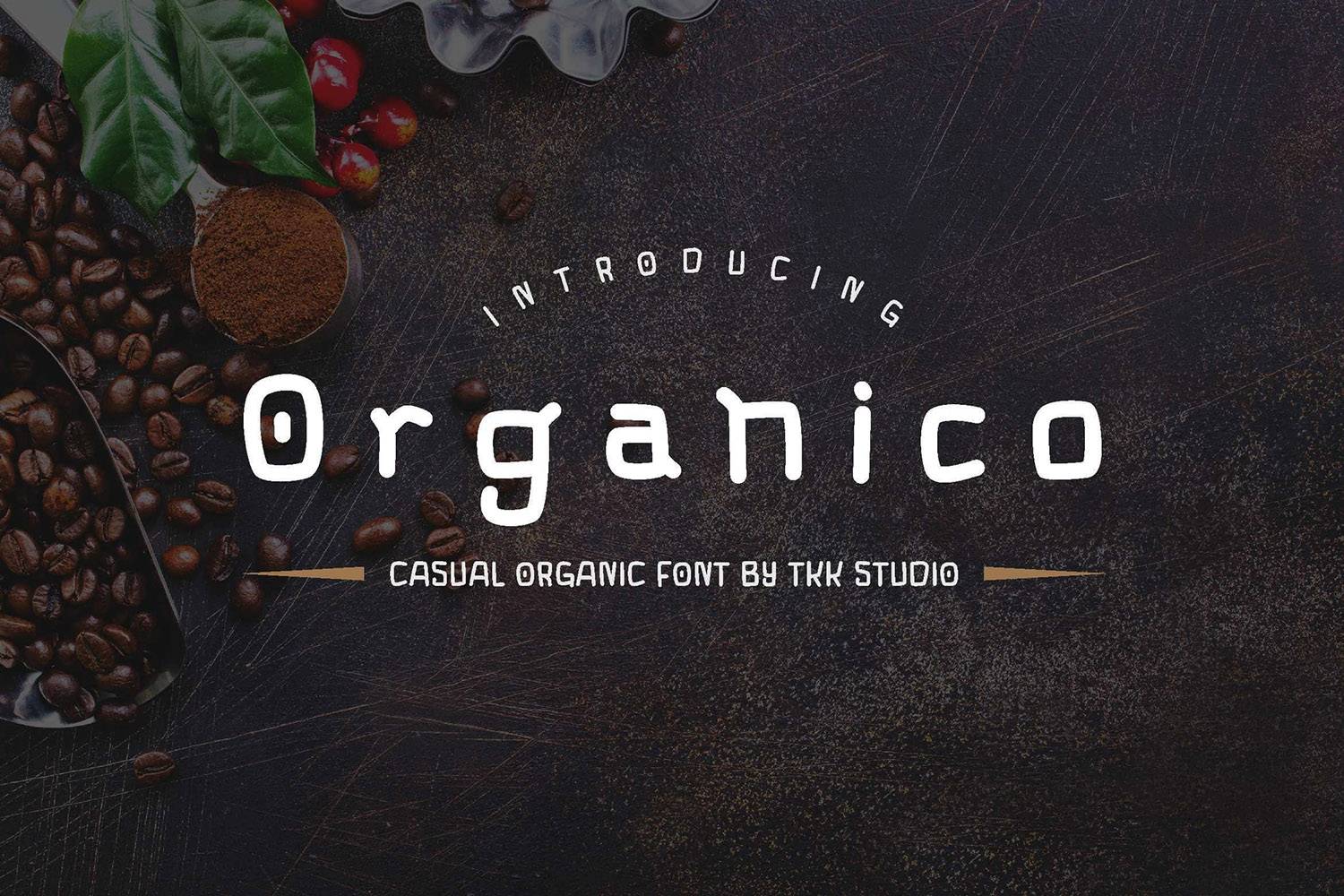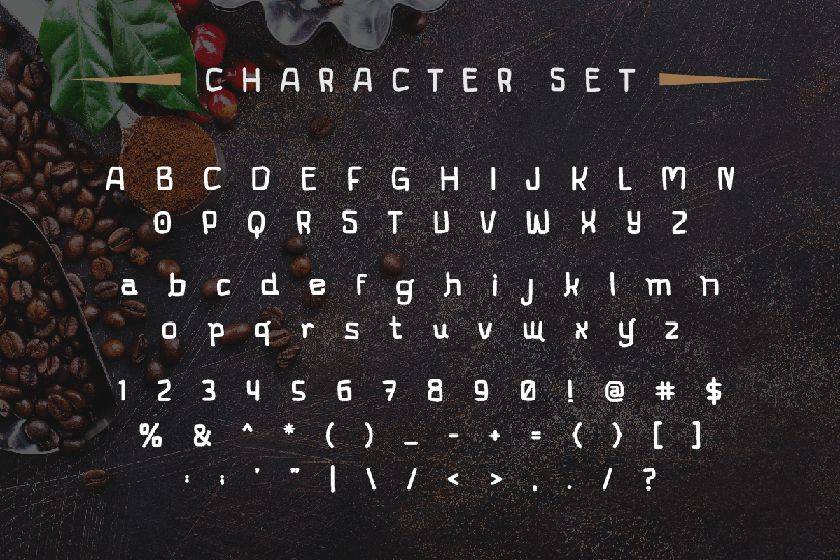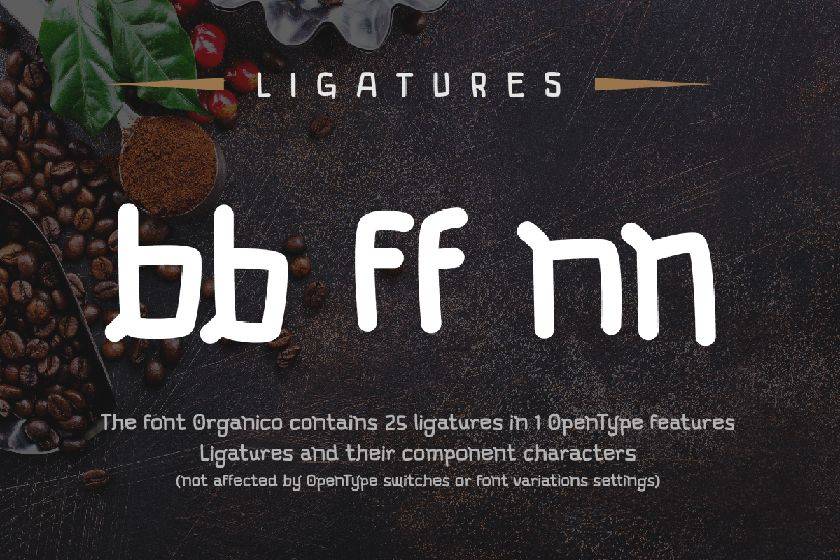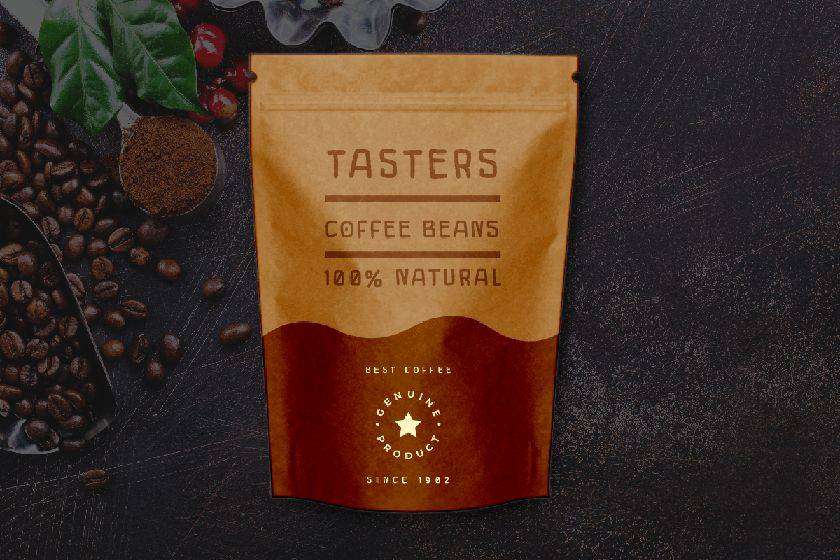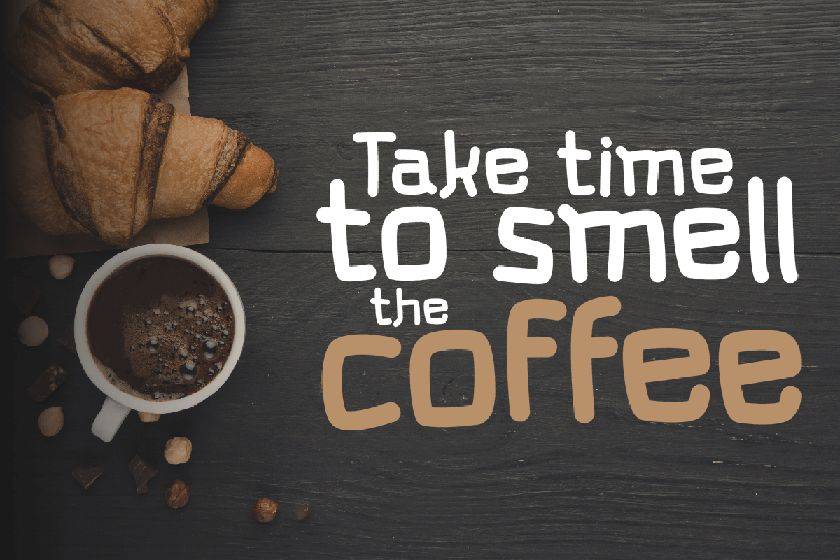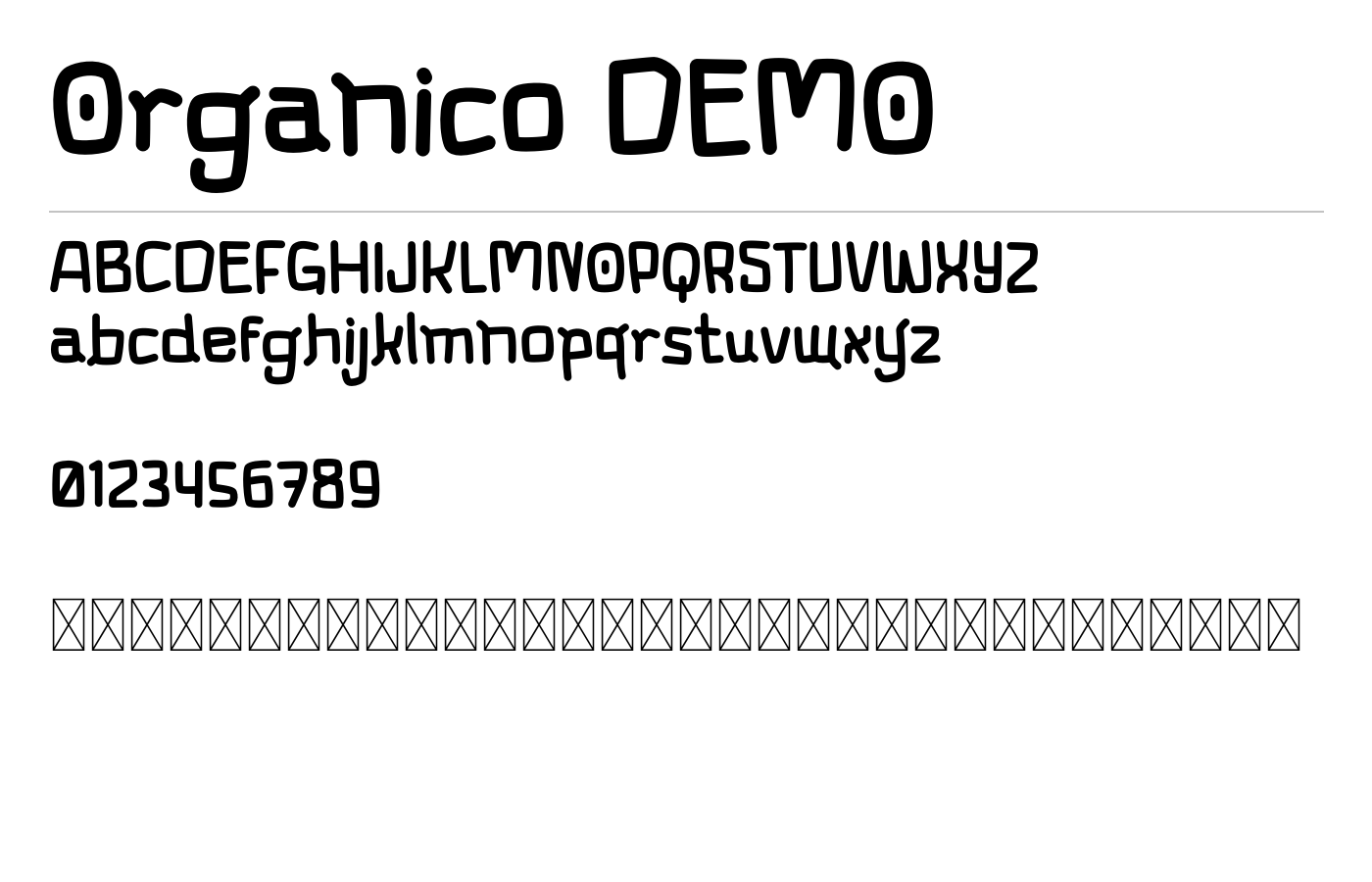
Organico is a playful, hand-drawn sans serif font with a casual and friendly personality. Its irregular, slightly rounded letterforms and moderate x-height give it an approachable, organic feel, making it perfect for creative projects, children's designs, and brands looking to convey warmth and authenticity. This font works well for headlines, logos, and packaging where a unique, informal touch is desired.
Organico Font
About Organico Font
| Font family | Organico Font |
| Designer | Sahirul |